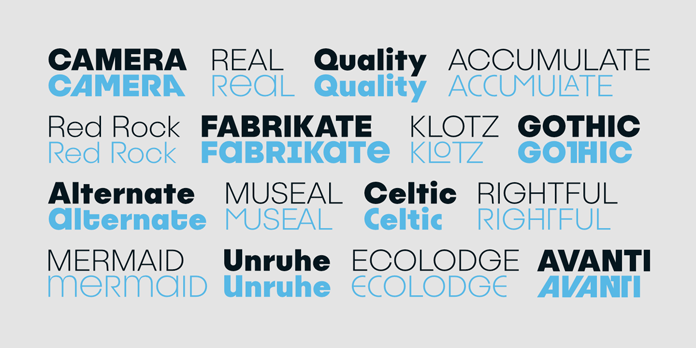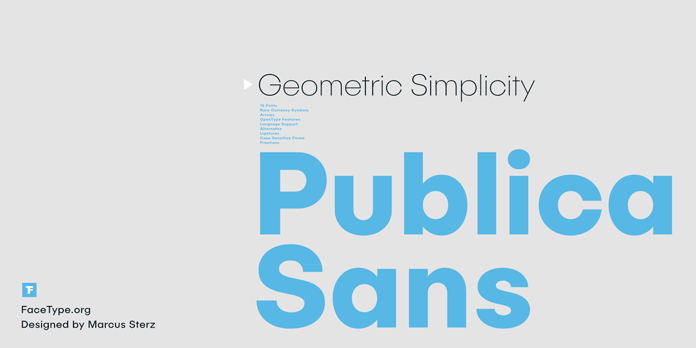
Publica Sans, a modern sans font family for highest professional needs.
There are only a few days left to get this new popular typeface for 90% off! Publica Sans was designed by Marcus Sterz. Published by foundry FaceType, this geometric sans serif made its debut on Apr 27, 2016. Marcus Sterz has developed this family with today’s typographic needs in mind. The result is a clean and geometric typeface that can be used for both print and web. Publica Sans is equipped with lots of OpenType features including alternate characters, diverse arrows, case-sensitive forms, currency symbols, numerous sets of figures and discretionary ligatures. You can read more about the family below the first image. Please note, the introductory offer ends soon! Just click on the following link to get the full family for 90% off.
The Publica Sans font family supports a variety of typographic demands.
Equipped with 18 fonts in diverse weights ranging from Extra Light to Black plus matching italics for each weight, this family is a great companion for a variety of typographic demands. Its clean, geometric shapes are well suited for branding projects as well as headlines and texts. Whether print or on screen, this typeface always performs very well! The discount expires in just a few days – so hurry up! If you want to purchase this modern type family, feel free and follow the link below.